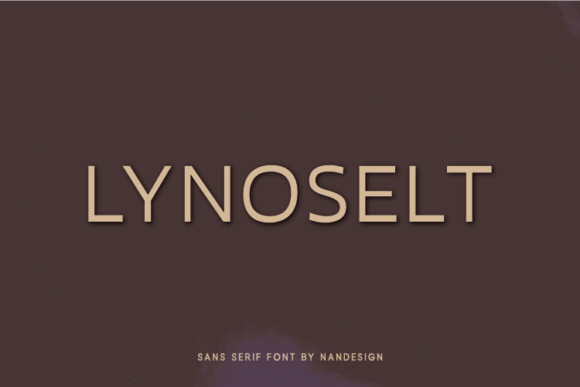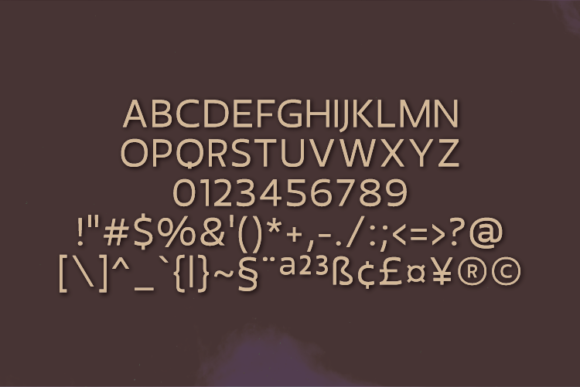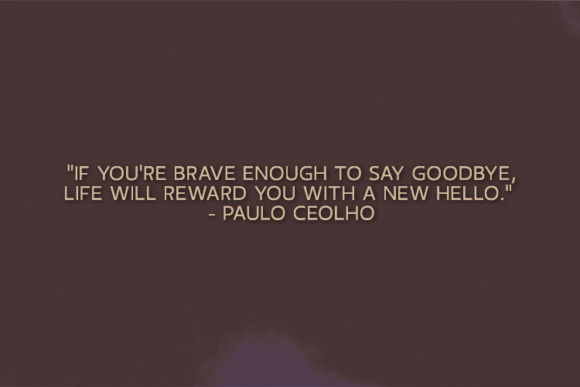
Lynoselt
About Lynoselt Font
Lynoselt is a lovely sans serif font created to complement every project you’re working on.It is perfect for displays, headers, invitations, save the dates, weddings, and so much more!